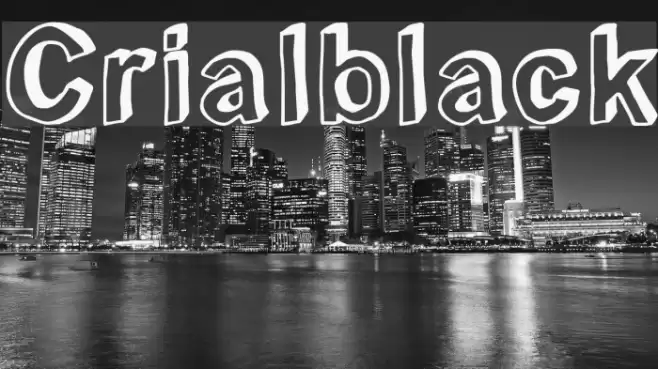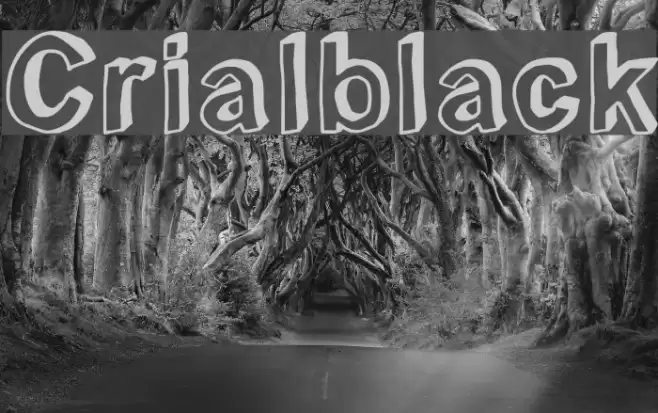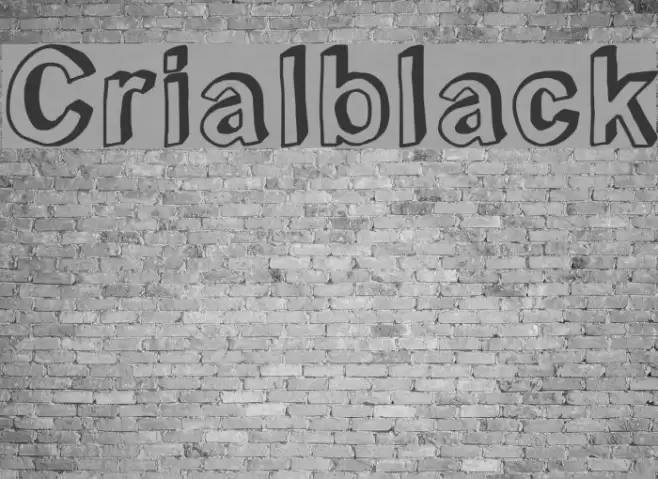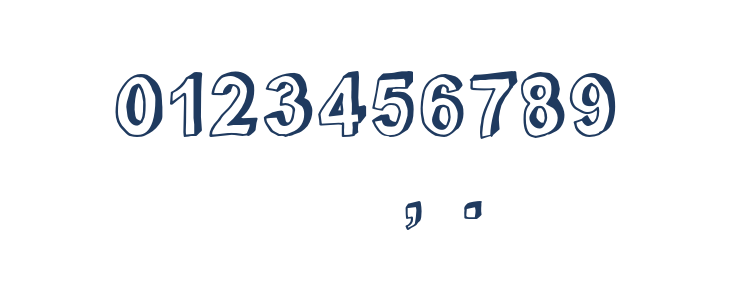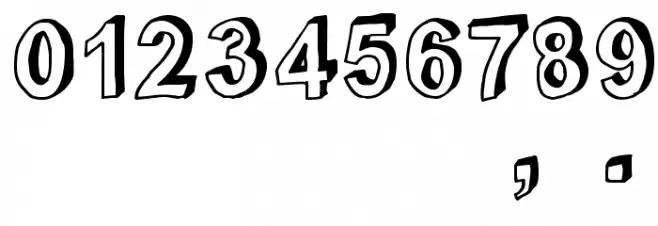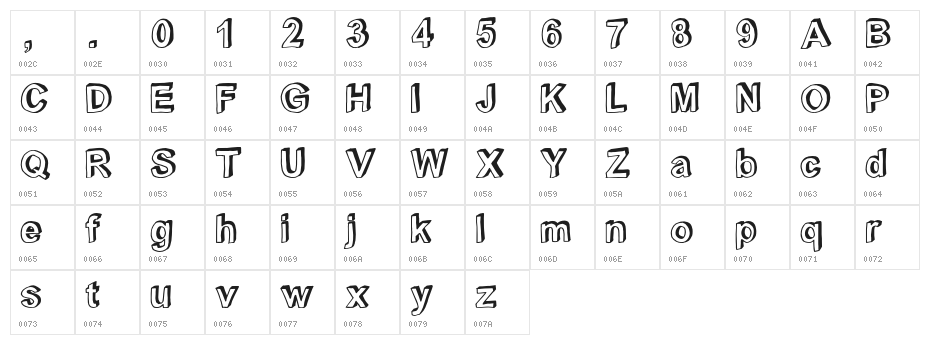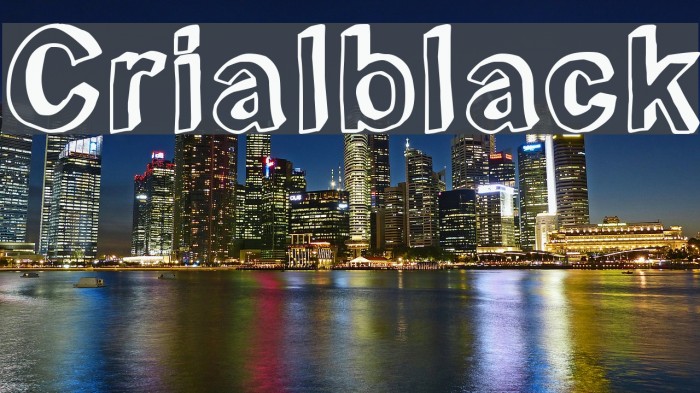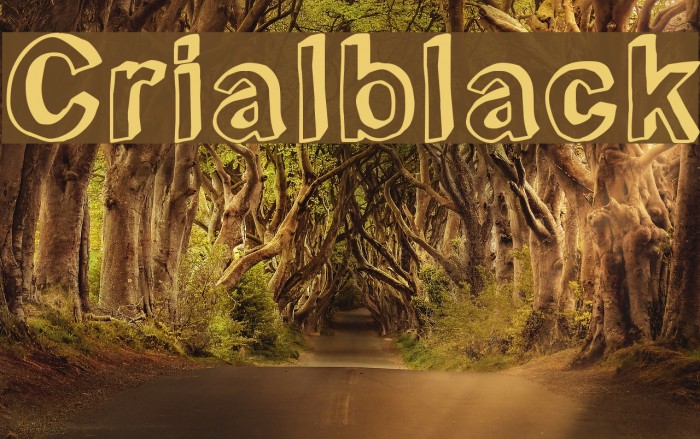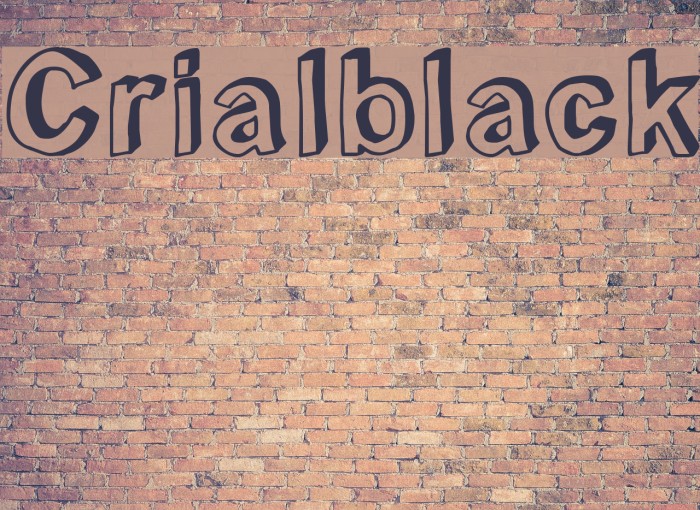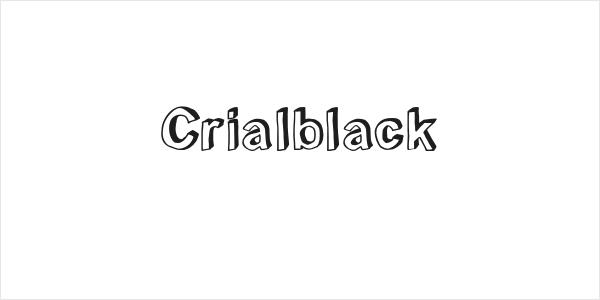
Crialblack Font
Crialblack Description
This font features a bold and playful style with a three-dimensional effect that gives each character a shadowed appearance. The letters are uppercase and lowercase, with a consistent stroke width that adds to its boldness. The numbers and special characters maintain the same playful and dynamic style, making it suitable for eye-catching designs. The font's unique shadow effect adds depth and dimension, making it stand out in any design project. Its bold and fun nature makes it perfect for projects that require a touch of whimsy and creativity.
A bold, playful font with a three-dimensional shadow effect from Uncategorized fonts.
- Proposed Projects: Ideal for children's book covers, playful posters, creative branding, and eye-catching headlines.
- Overall Style: Playful, Creative, Bold